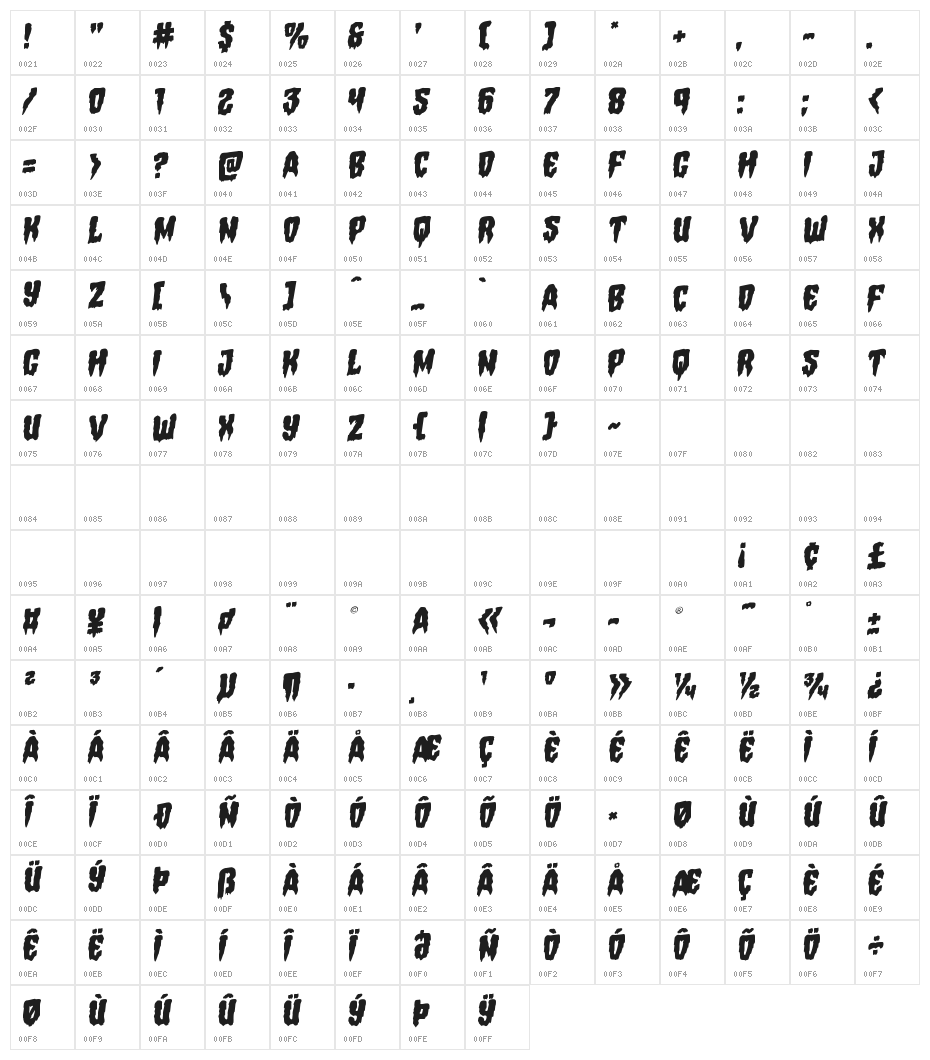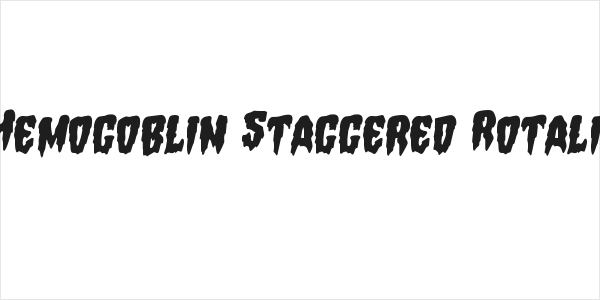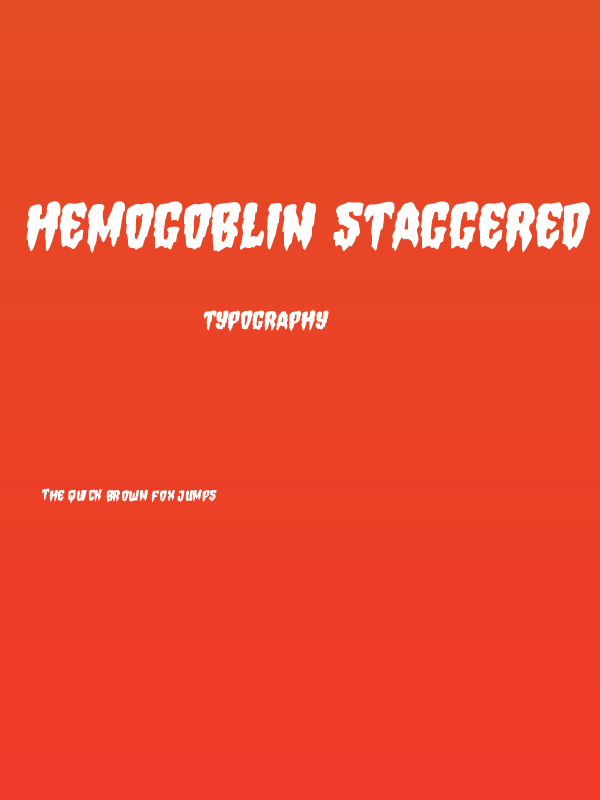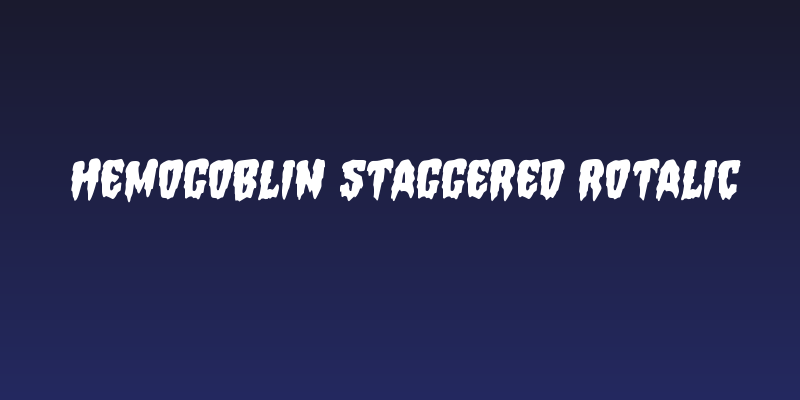
Hemogoblin Staggered Rotalic Font
Hemogoblin Staggered Rotalic Description
This font features a bold and jagged design, reminiscent of horror or thriller themes. The characters have a staggered, uneven appearance, giving them a dynamic and unsettling look. The strokes are thick and irregular, creating a sense of movement and chaos. This style is ideal for creating a dramatic impact, with its sharp edges and bold presence. The font's unique design makes it stand out, perfect for projects that require a touch of the eerie or unconventional.
| Use Case | Headlines, Posters, Logos |
| Proposed Projects | Ideal for horror movie posters, Halloween event flyers, or any project needing a dramatic, eerie touch. |